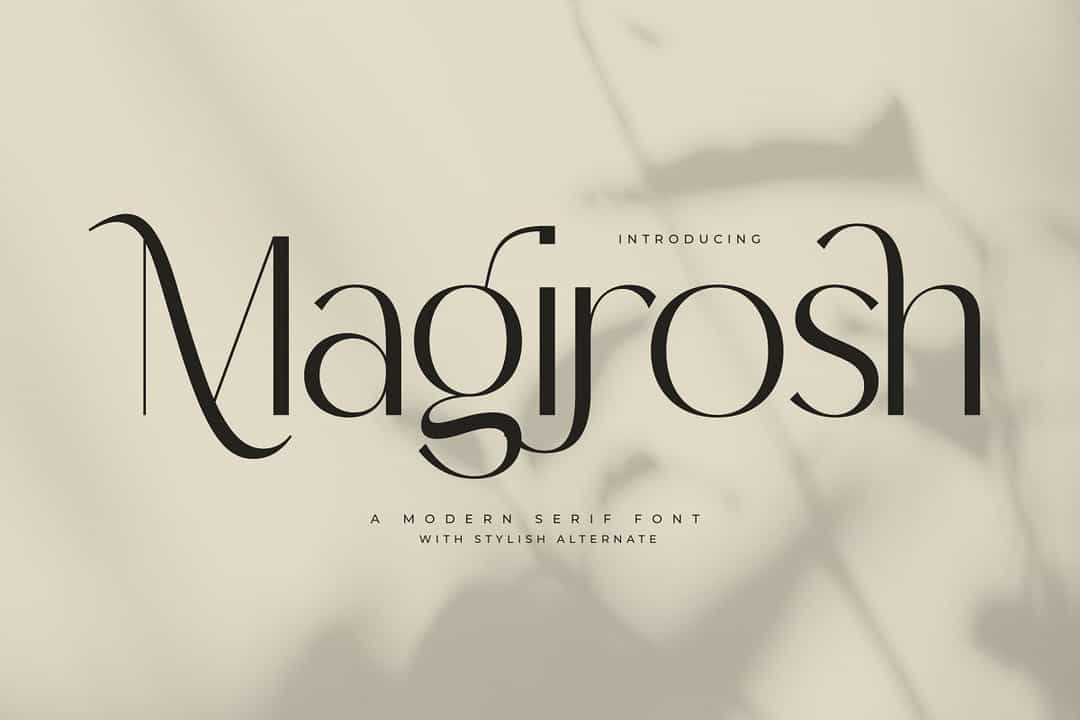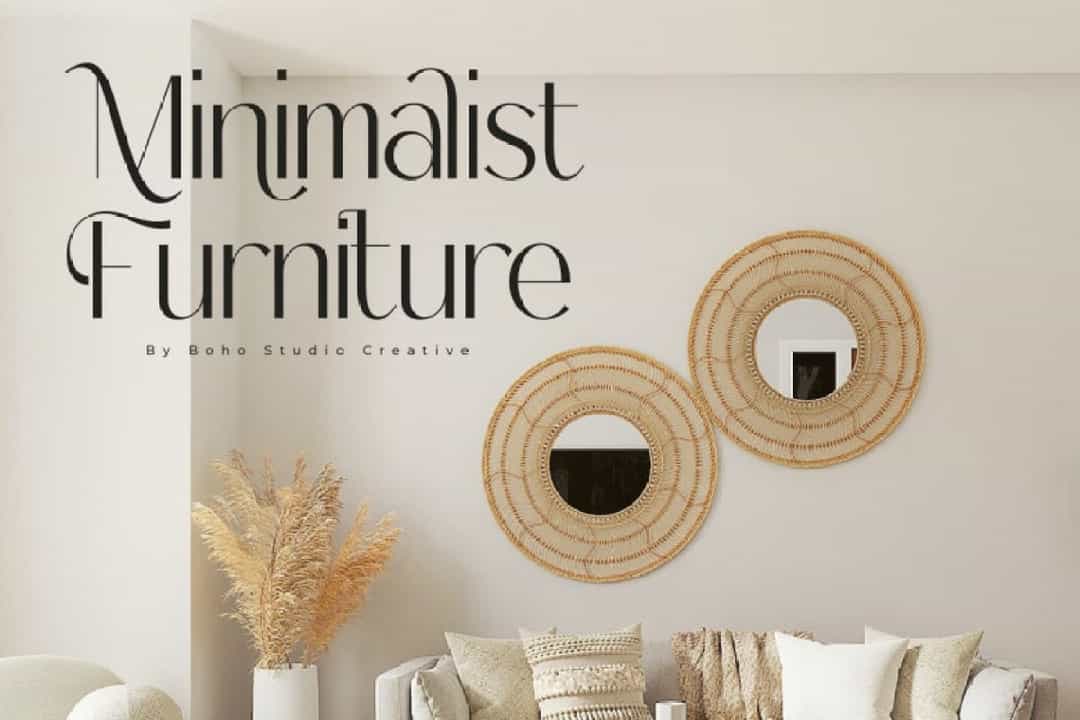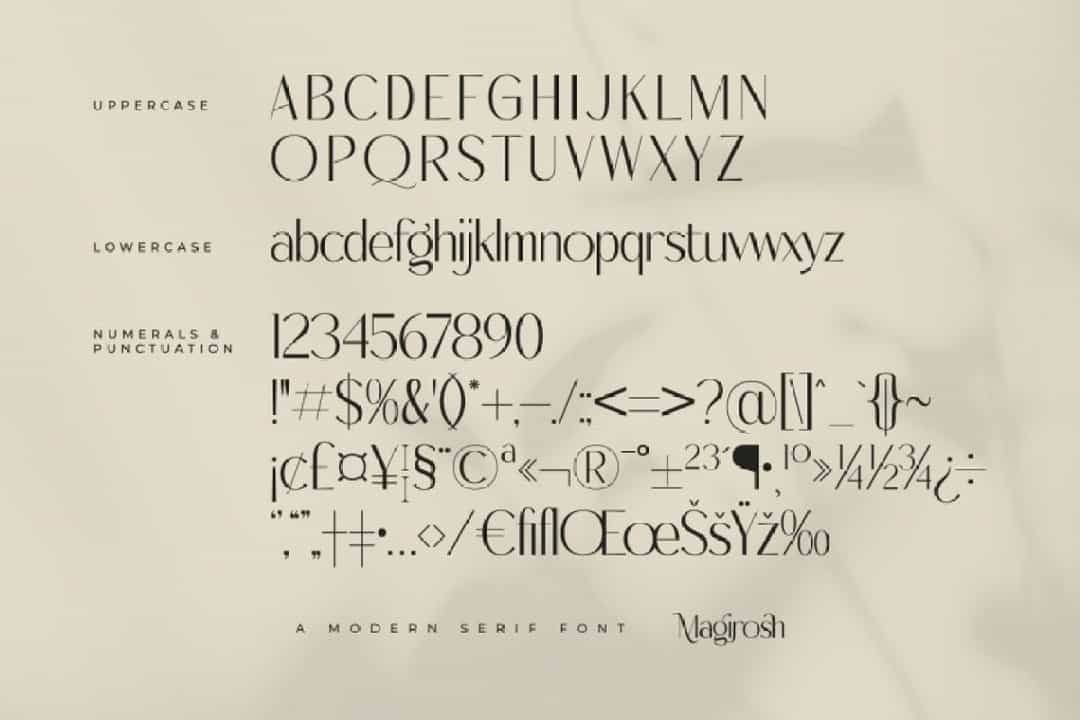
Magirosh is an elegant serif font with an outstanding contemporary appearance, ideal for creating sophisticated and stylish logos, fashion labels clothing magazines quotes as well as lettering projects. Additionally, Magirosh makes lettering easier.